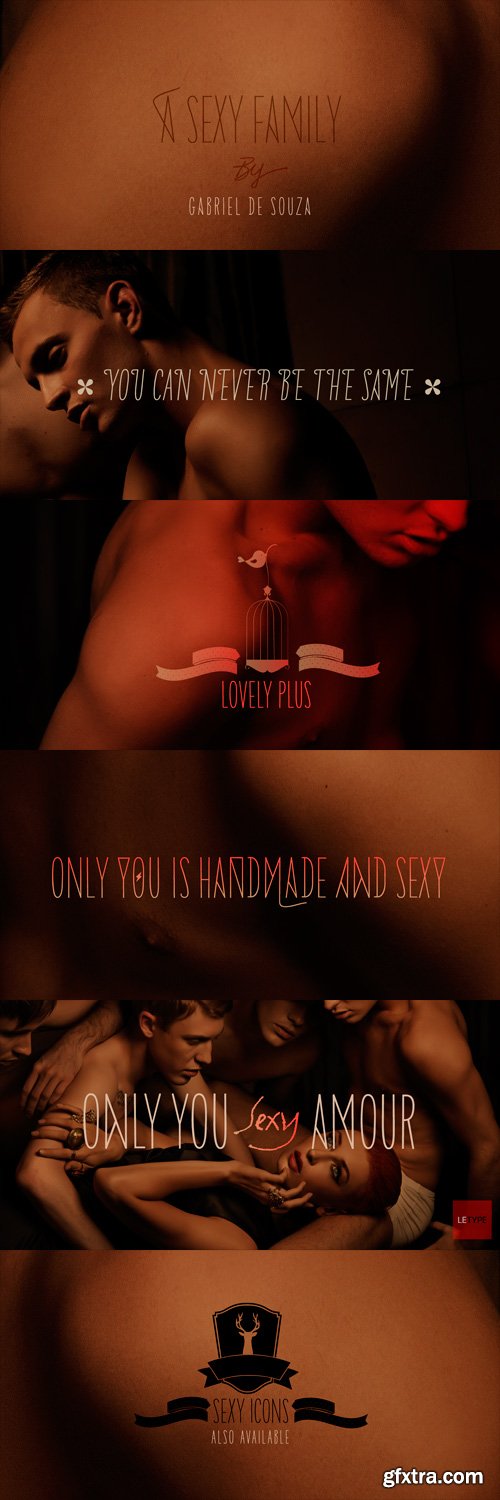
Is the real romanticism over? This is not the intention achieved on a creation of the new version of Only You Pro. Develop a font that reflects the perfect union of sensuality and romanticism: Only You Sexy. It has a soft trait and delicated curves that evokes contemporary and musicality while has erotic and sensual references. The icons are a piece of show. They make reference to hipsters concept a recurring nostalgia and a recovery of an almost forgotten romanticism. Bring all that romance back. Bring the sensuality in your work and graphic texts. This font brings back everything that the true romanticism deserves: a font that allows you to write using beauty, sensuality and the sounds from the hearts. Only You Sexy is handmade, stylish, modern and multilingual. With more than 800 glyphs it is possible to get an infinity of combinations at your disposal. The font doesn't have PDF and works better in softwares that support the complete OpenType function.